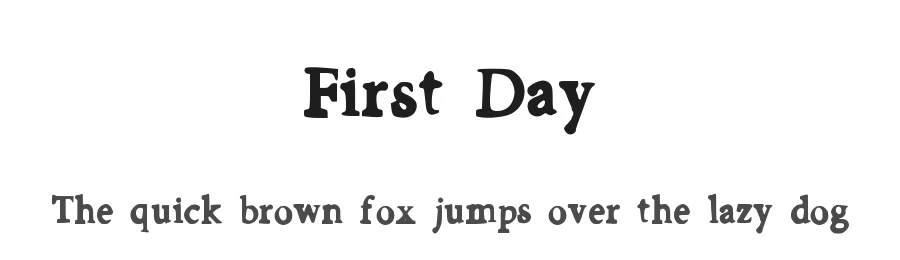
About Belle West Font
Belle West Font is a decorative font that shines as a display or heading face. Pair it with a clean sans-serif or serif font for body text β the contrast creates a clear hierarchy while the two styles stay balanced and easy to read.